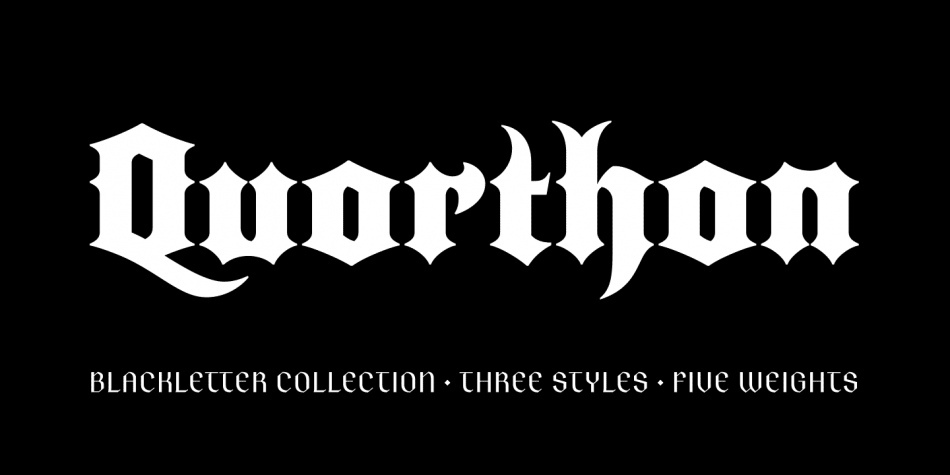
Quorthon Font
Quorthon Font is perfect for metal music branding, gothic entertainment campaigns, dark atmospheric designs, extreme music festival materials, underground music labels, horror movie titles, rebellious lifestyle brands, heavy metal merchandise, and intense artistic projects.
What makes Quorthon Font exciting is its powerfully dark character that channels the raw intensity and uncompromising spirit of extreme music through bold, aggressive letterforms that seem to pulse with underground energy and rebellious power. The font features strong angular structures with dark atmospheric details that capture the fierce independence and artistic integrity found in underground music culture. Its commanding presence and dark authenticity make it perfect for brands that want to communicate intensity, artistic rebellion, and the uncompromising dedication to authentic expression that defines underground music and alternative culture while creating memorable experiences that honor the fierce spirit of musical independence.
Quorthon Font family includes various intense weights such as Regular, Bold, and Heavy variations, often featuring dark stylistic alternates and underground decorative elements. The family may include metal symbols, gothic ornaments, and aggressive ligatures that enhance the font's extreme aesthetic, providing designers with comprehensive options for creating powerful typographic compositions that capture the essence of underground music culture and artistic rebellion.